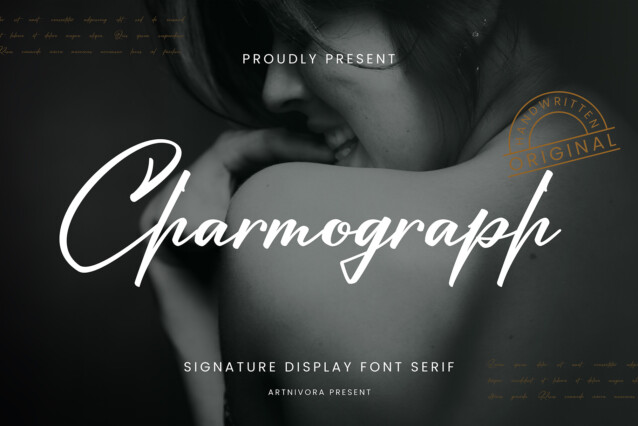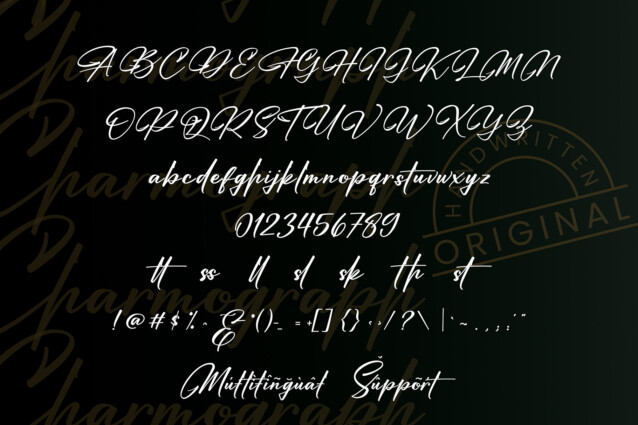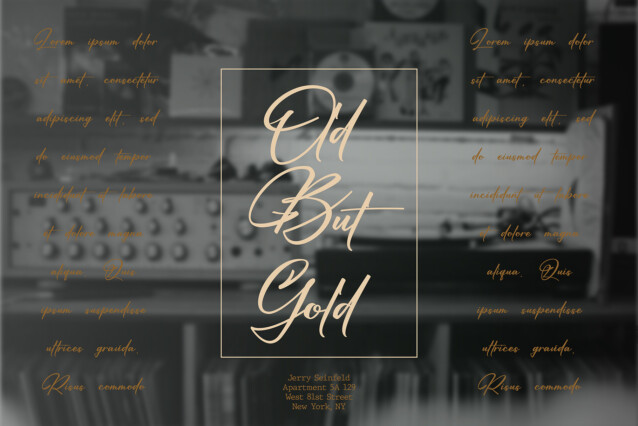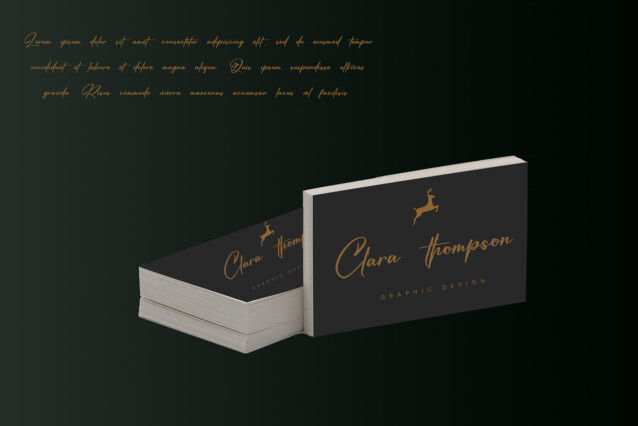
Charmograph Font is a simple and signature font. So perfect for you who needs a typeface for logo designs, magazine, social media, brochure, and many more.